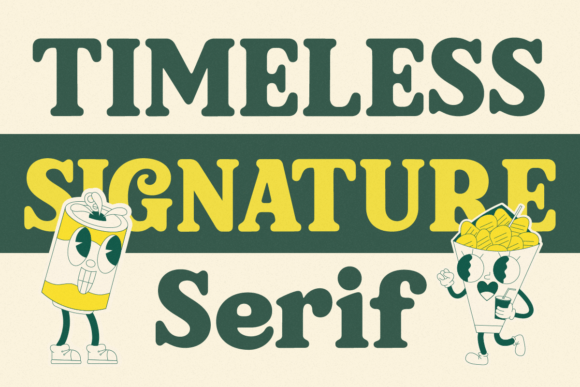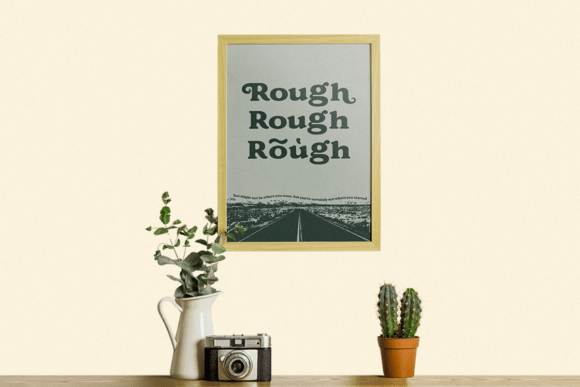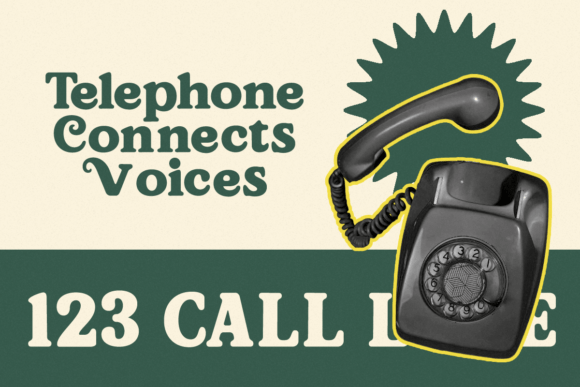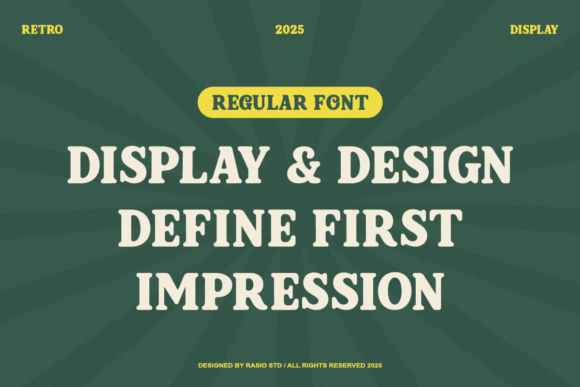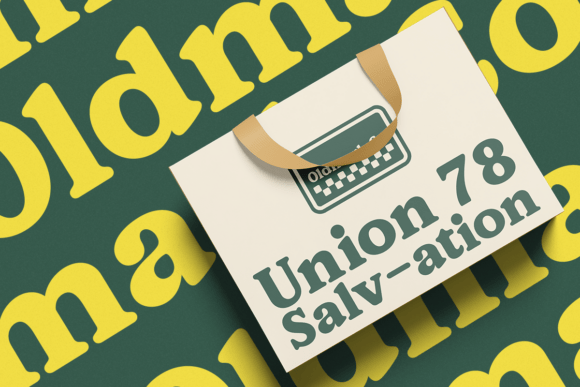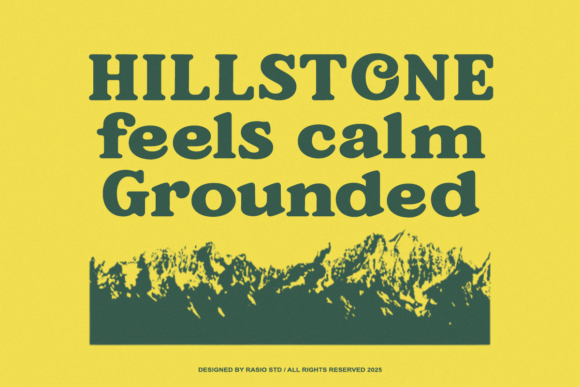
Step Back in Time with Curlonia: The Retro Display Serif that’s Making a Statement
Are you a designer or craftsperson looking to add a touch of nostalgia and whimsy to your work? Look no further than Curlonia, a retro display serif that’s bringing the vibrant energy of the 60s and 70s into the modern era. With its thick, confident stems and delightful “ball” terminals that spiral into expressive curls, Curlonia is the perfect font for those who want to make a statement.
A Font that Captures the Spirit of the 60s and 70s
Curlonia is more than just a font – it’s a time machine. With its bold, eye-catching design, it’s sure to transport you back to an era of psychedelic posters, vinyl records, and boutique fashion. The font’s thick stems and expressive curls evoke the playful, carefree spirit of the 60s and 70s, while its clean, professional finish ensures that it remains legible and versatile.
Curlonia is an essential tool for designers and crafters who want to add personality and a touch of whimsy to their work. Whether you’re designing a logo for a cafe, record store, boutique fashion brand, or artisanal craft shop, Curlonia is the perfect choice. Its unique blend of nostalgia and modernity makes it an excellent fit for businesses that want to stand out from the crowd and establish a strong brand identity.
Key Features of Curlonia
- Thick, confident stems: Curlonia’s stems are bold and eye-catching, making it perfect for headlines and titles.
- Delightful “ball” terminals: The font’s terminals spiral into expressive curls, adding a touch of whimsy and personality to your design.
- Clean, professional finish: Despite its playful design, Curlonia remains legible and versatile, making it perfect for a wide range of applications.
- Nostalgic vibe: Curlonia captures the spirit of the 60s and 70s, making it perfect for designers and crafters who want to evoke a sense of nostalgia in their work.
Use Cases for Curlonia
Curlonia is a versatile font that can be used in a wide range of applications. Here are a few ideas to get you started:
- Cafe or restaurant branding: Curlonia’s playful, nostalgic vibe makes it perfect for cafes and restaurants that want to establish a fun, welcoming atmosphere.
- Record store branding: The font’s retro design makes it a natural fit for record stores and music-related businesses.
- Boutique fashion branding: Curlonia’s unique blend of nostalgia and modernity makes it perfect for boutique fashion brands that want to stand out from the crowd.
- Artisanal craft shop branding: The font’s playful, handmade feel makes it perfect for artisanal craft shops and businesses that want to emphasize their unique, handmade products.
Curlonia is a retro display serif that’s making a statement in the design world. With its thick, confident stems and delightful “ball” terminals that spiral into expressive curls, it’s the perfect font for designers and crafters who want to add personality and a touch of whimsy to their work. Whether you’re aiming for a vintage psychedelic look or a friendly, artisanal brand identity, Curlonia delivers a warm, inviting presence that feels both timeless and trendy. So why not give it a try and see how Curlonia can elevate your design?